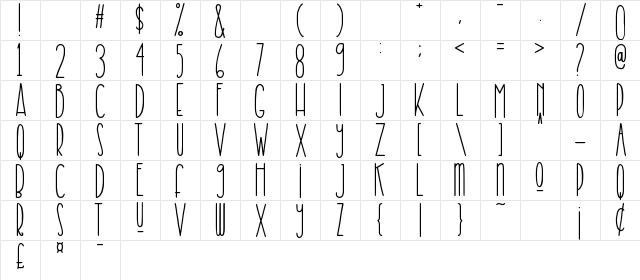
krusty craft Regular
| Designer | Abo Daniel 2020 |
Design Context for krusty craft Typeface
krusty craft offers clean, dependable letterforms without strong stylistic allegiance, making it a practical choice for designers who need flexibility.